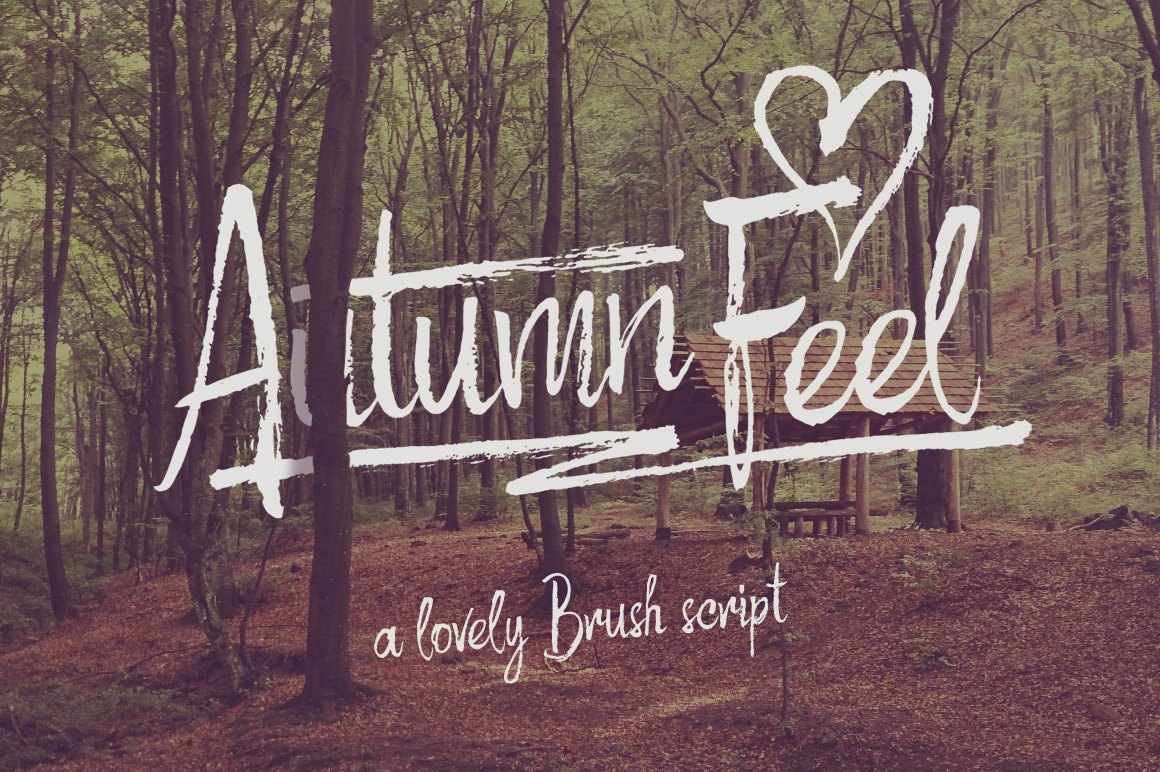
The Cozy Charm of Autumn: Unpacking the Autumn Feel Font
As the leaves change colors and the air grows crisp, I find myself inspired to create designs that capture the essence of the season. There’s something about the feeling of crunching through fallen leaves or sipping hot apple cider that sparks my imagination. This time of year is the perfect excuse to get creative, and I’m excited to share with you a font that embodies the warm, cozy spirit of autumn: the Autumn Feel Font.
Hand-drawn with a dry brush, the Autumn Feel Font is more than just a font – it’s an experience. With its unique texture and organic feel, it’s the perfect choice for designers looking to add a touch of personality to their work. And with the included Autumn Feel Extras font, which features a range of swashes and dynamic strokes, the possibilities are endless. Whether you’re designing a seasonal campaign or simply want to add a bit of autumnal charm to your brand, the Autumn Feel Font is a valuable addition to any designer’s toolkit.
Autumn Feel Font Key Features
- Font Family: Autumn Feel
- Font Size: 7 styles, ranging from 12pt to 120pt
- Resolution: Supports high-resolution displays (up to 4K)
- Unique Characteristics: Hand-drawn design with subtle texture and warm color palette, evoking a cozy autumn atmosphere
- Language Support: Supports Latin, Cyrillic, and Greek alphabets, as well as various punctuation and special characters
Autumn Feel Font Review
I recently had the chance to work with the Autumn Feel Font and I must say it’s an interesting choice for designers looking to create a cozy atmosphere. Here are my thoughts.
- Warm and inviting tone: The font perfectly captures the feeling of autumn with its earthy undertones and soft, rounded edges.
- Legibility: Despite its script-like appearance, the font is surprisingly readable even at smaller font sizes.
- Flexibility: Autumn Feel Font comes in multiple weights, making it suitable for a wide range of design applications.
- Limited expressiveness: While the font is great for conveying a sense of coziness, it may not be the best choice for projects that require a lot of text manipulation or intricate details.
- Lack of personality: Some characters may appear a bit generic or overused, which could make the design feel less unique.
While the Autumn Feel Font has its limitations, it’s still a solid choice for designers looking to create a warm and inviting atmosphere. It’s perfect for projects like blog headers, social media posts, or even packaging design. However, it may not be the best fit for more complex or creative projects.
Tips for Getting the Most Out of Autumn Feel Font
For a more authentic autumn feel, pair the font with warm colors and autumn-themed graphics. Experiment with different font sizes and styles to create visual interest.
Autumn Feel Font is perfect for:
- Seasonal marketing materials (e.g. flyers, posters)
- Personalized invitations and greeting cards
- Blog posts and social media graphics featuring autumn-themed content
Lato Font is a clean, modern sans-serif font that is perfect for creating a sophisticated and elegant design. It’s a great alternative to Autumn Feel Font for designers who want to create a cohesive and polished look. Lato Font has a more neutral tone compared to Autumn Feel Font, making it suitable for a wide range of design projects.
Alegreya Font
Alegreya Font is a beautiful, elegant serif font that is reminiscent of traditional typography. It’s a great choice for designers who want to create a warm and inviting atmosphere, similar to Autumn Feel Font. However, Alegreya Font has a more classic and timeless feel compared to Autumn Feel Font, making it suitable for design projects that require a sense of tradition and sophistication.
Merriweather Font is a classic serif font that is known for its elegance and sophistication. It’s a great alternative to Autumn Feel Font for designers who want to create a warm and inviting atmosphere without the rustic feel of Autumn Feel Font. Merriweather Font has a more refined and polished tone compared to Autumn Feel Font, making it suitable for design projects that require a sense of luxury and sophistication.
Q: What is the recommended font size and line height for Autumn Feel Font?
We recommend using the Autumn Feel Font at a minimum font size of 12 points and a line height of 1.5-2 times the font size. This will ensure optimal readability and balance in your designs.